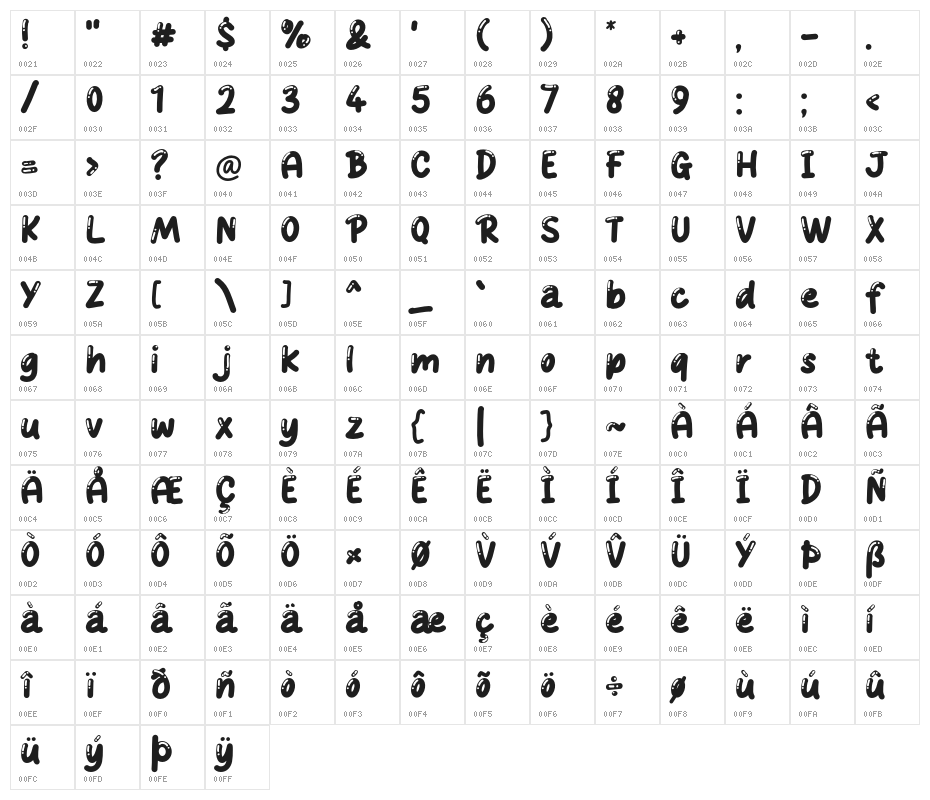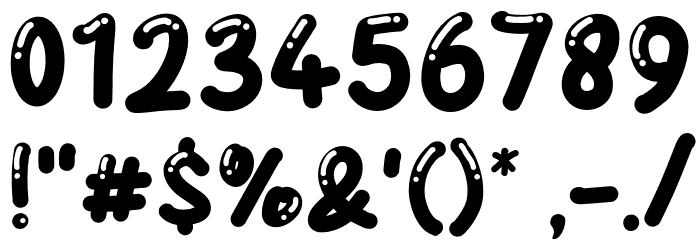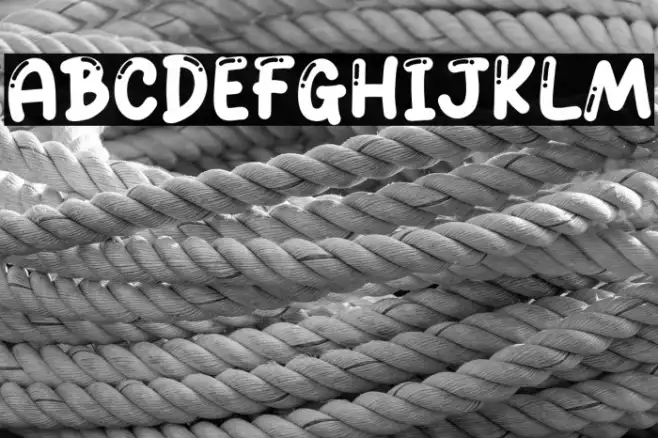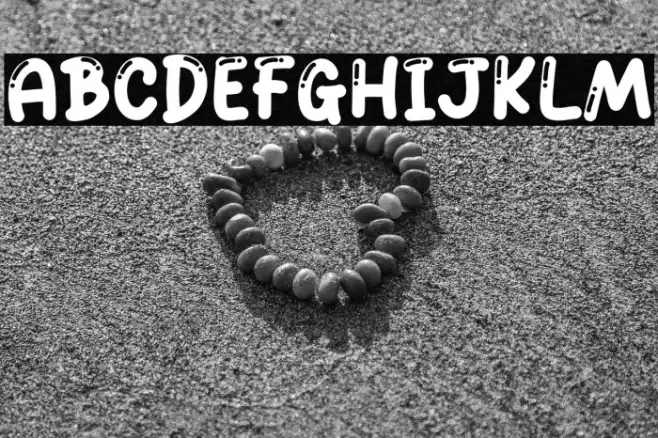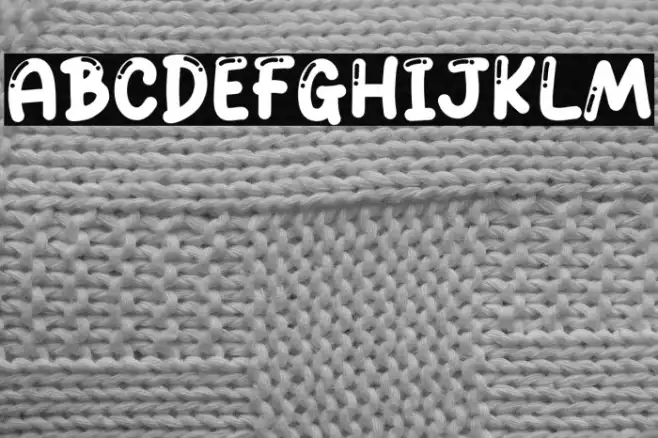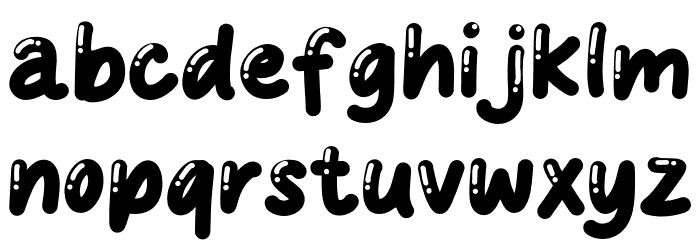
BOUNCY GUM Font
BOUNCY GUM Description
This playful and whimsical font features bold, rounded characters with a bubbly appearance. The letters are designed with a cartoonish style, incorporating playful elements like small highlights that give a shiny, three-dimensional effect. The strokes are thick and consistent, contributing to a cohesive and lively look. This font exudes a sense of fun and creativity, making it ideal for projects that aim to capture attention with a cheerful and informal tone. The characters are well-spaced, ensuring readability while maintaining a dynamic and energetic feel.
| Overall Style | Playful, Whimsical |
| Proposed Projects | Perfect for children's books, playful branding, party invitations, and fun social media graphics. |